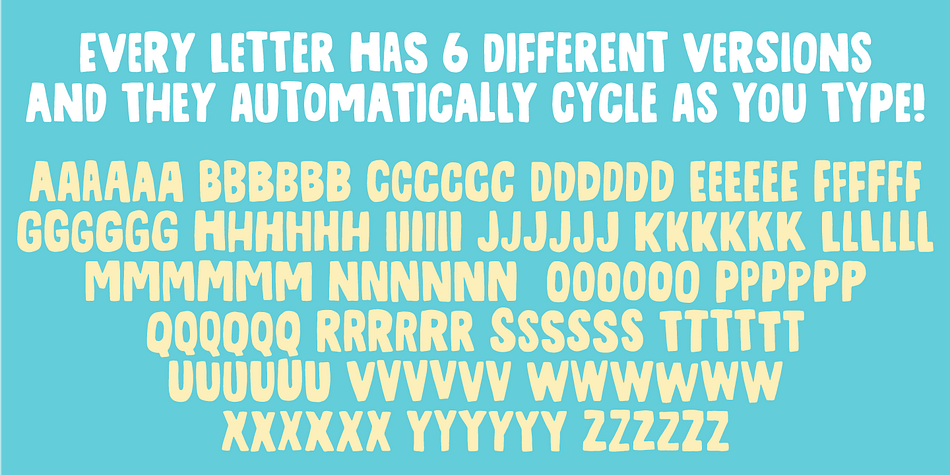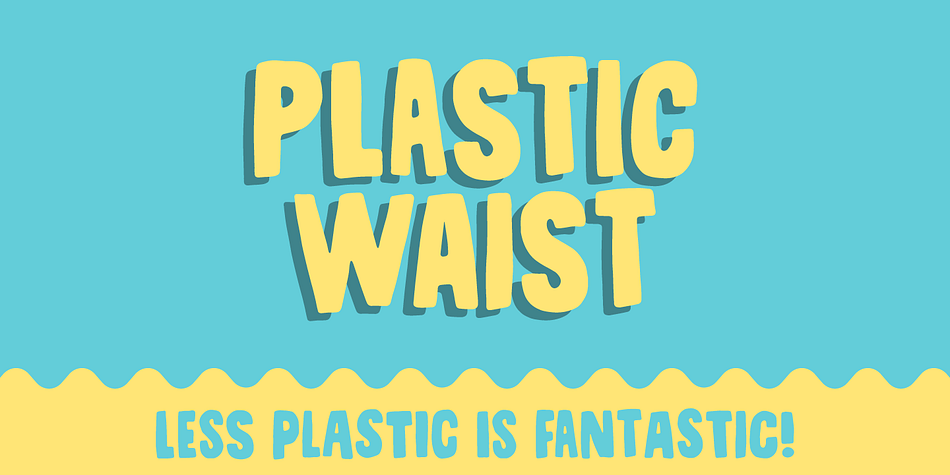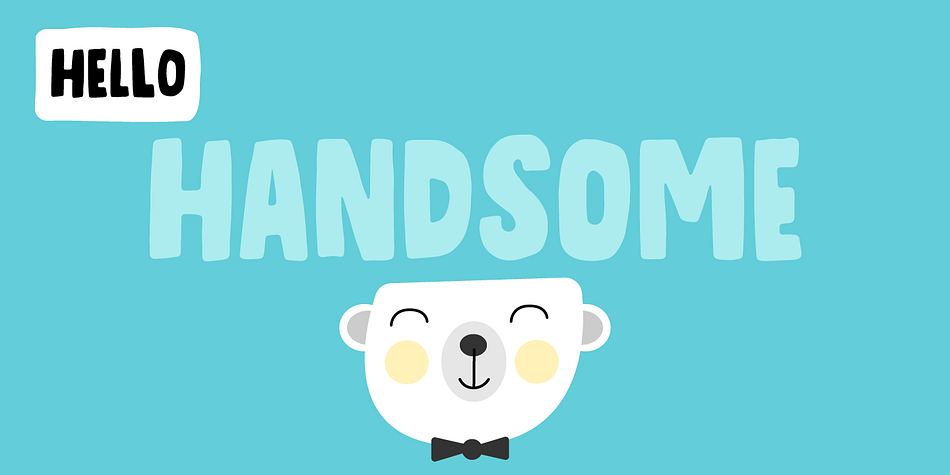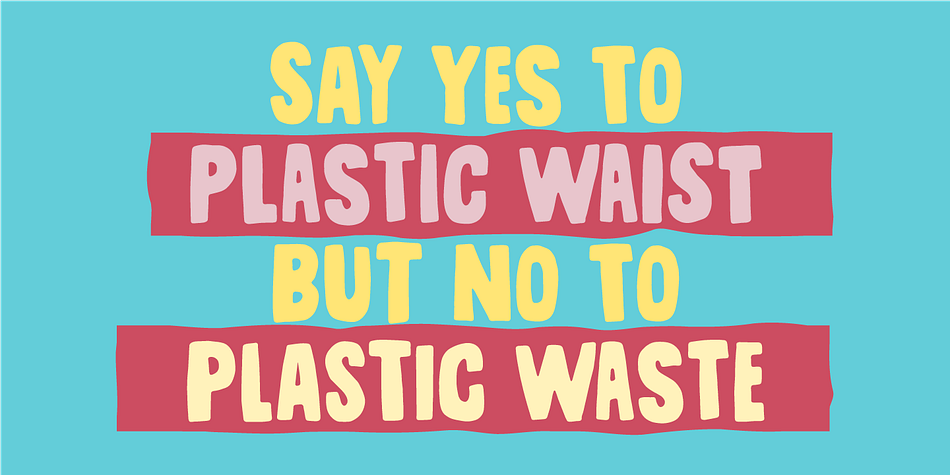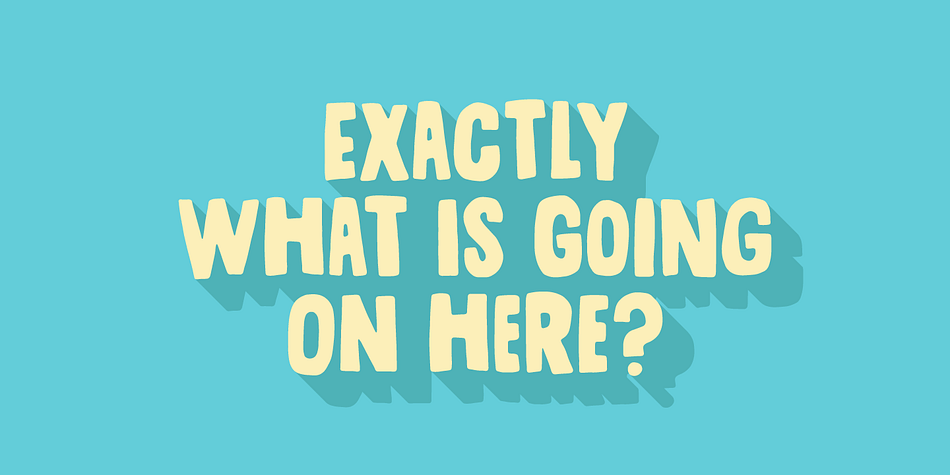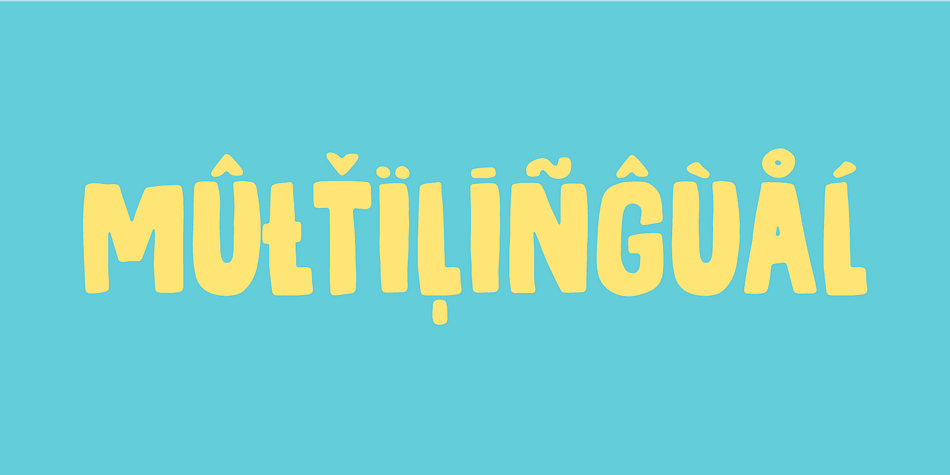
Designed by Jakob Fischer, Plastic Waist is a hand display font published by Pizzadude.dk.
Plastic Waist is just a wordplay - a wordplay that hopefully sets your mind to the huge amount of plastic waste we’re experiencing these days. Be aware of how much plastic you use, recycle and don’t throw your plastic in nature.